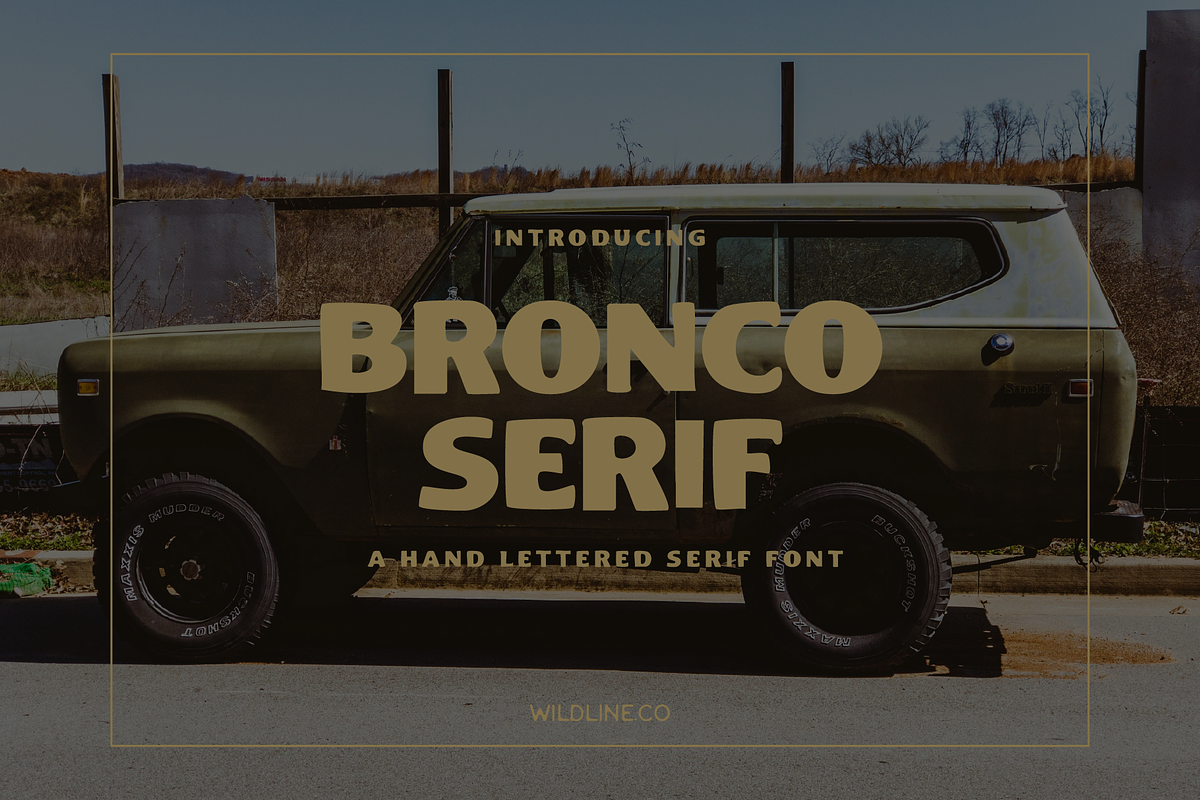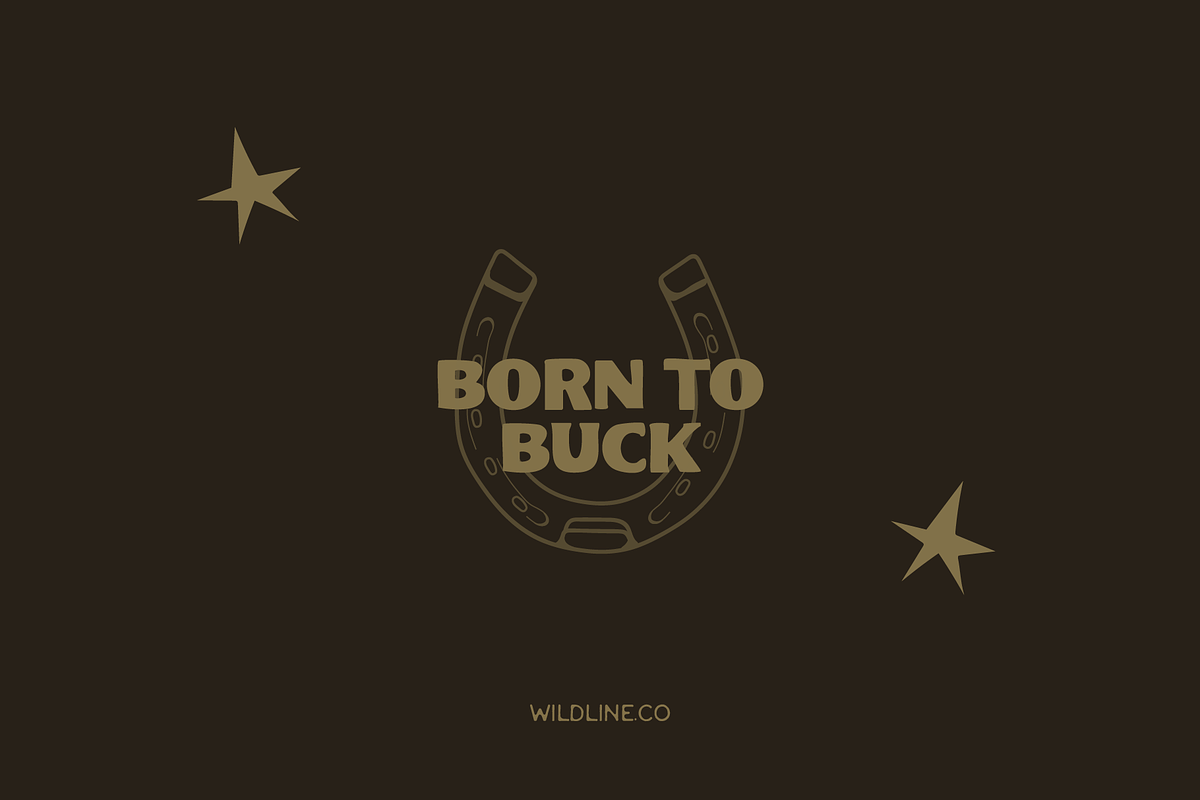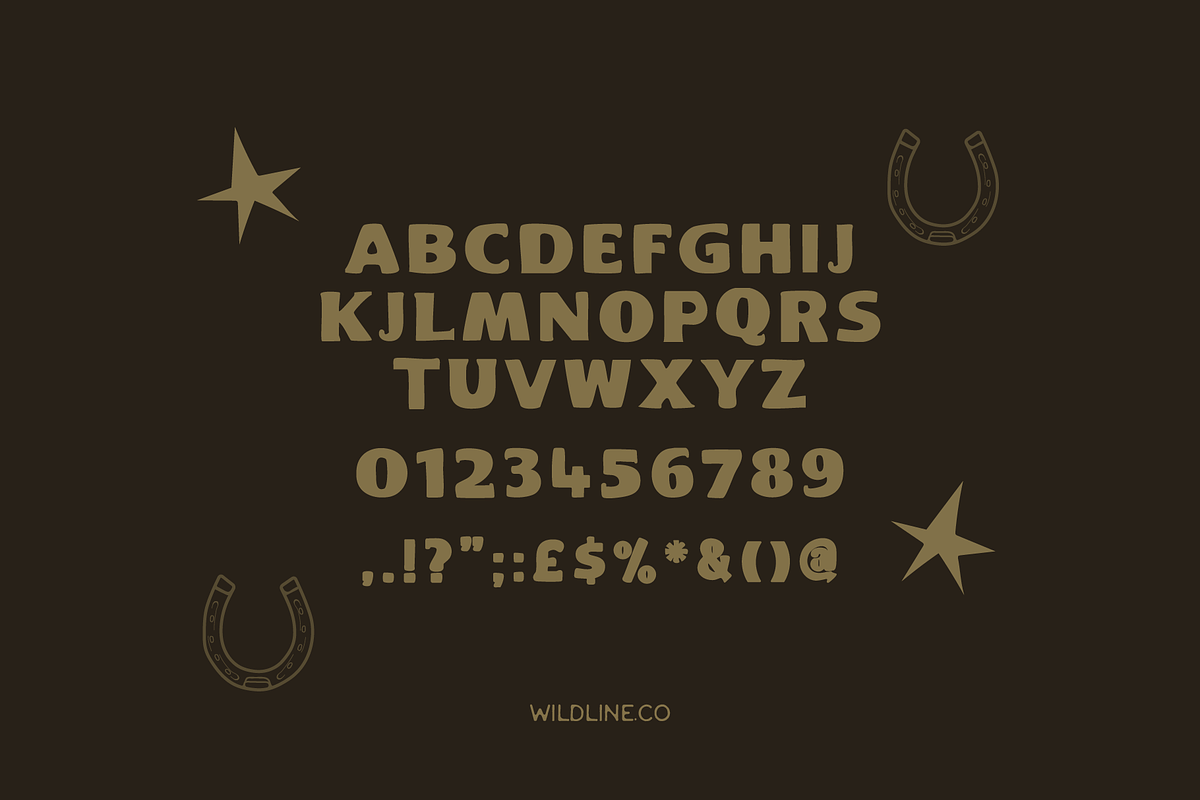
Bronco Serif | A Hand Lettered Serif
Bronco Serif rides the line between rugged and refined. A bold, hand-lettered serif font that kicks up dust and doesn’t apologise for it. With sturdy letterforms and imperfect charm, it brings that raw, sun-faded character to whatever you’re branding, from vintage whiskey labels to modern ranch wear logos.
Every stroke feels like it was wrangled by hand, with just enough grit to keep it real.